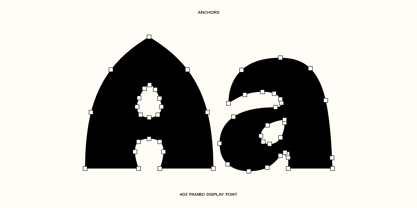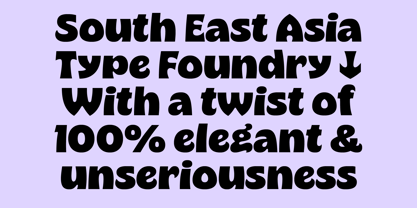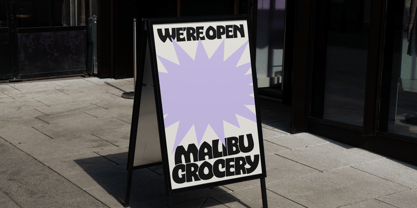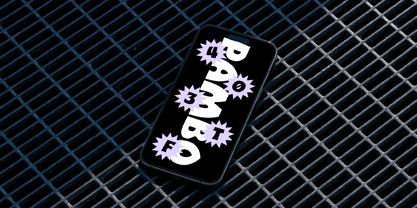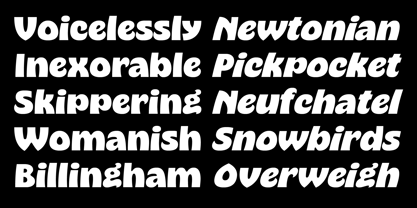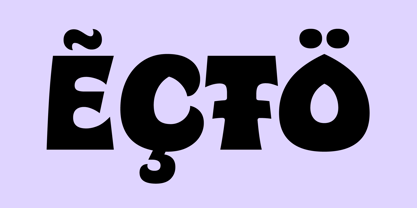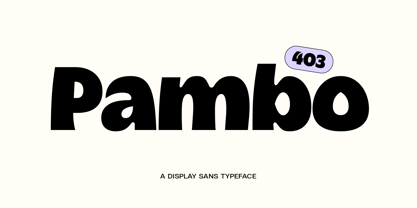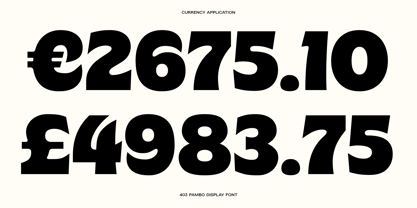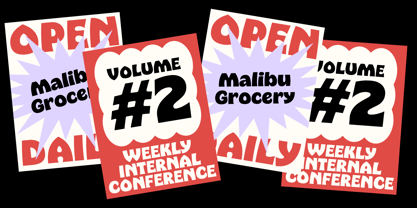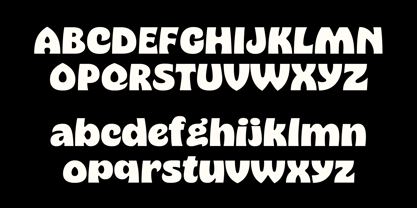
403 Pambo
por 403TF
La familia tipográfica 403 Pambo fue diseñada por Umar Al Farouq, Jodi El Ghazi, Febri Riansah y publicada por 403TF. 403 Pambo contiene 2 estilos y opciones de paquete familiar. Más información sobre esta familia
403 Pambo has a groovy 1960s and 1970s look and is a bold, lively, and retro-inspired font. It is perfect for eye-catching graphics like posters, record covers, and retro-themed branding because of its exaggerated curves and eccentric shapes, which give it a joyful, approachable attitude. Due to its highly stylized form, it works well as a headline font but is less successful for body text, making it ideal for ornamental or display purposes. 403 Pambo is ideal for projects that call for a whimsical, nostalgic feel since it gives charm and vitality to any design while retaining a powerful visual impact.